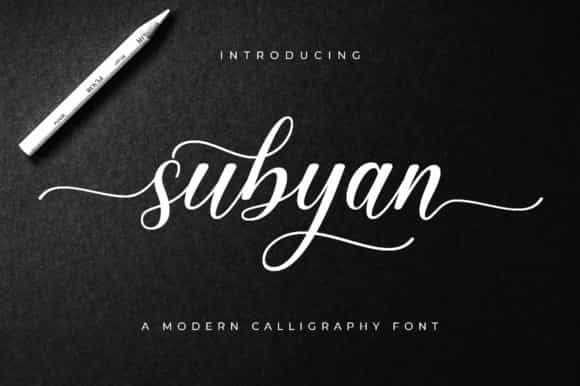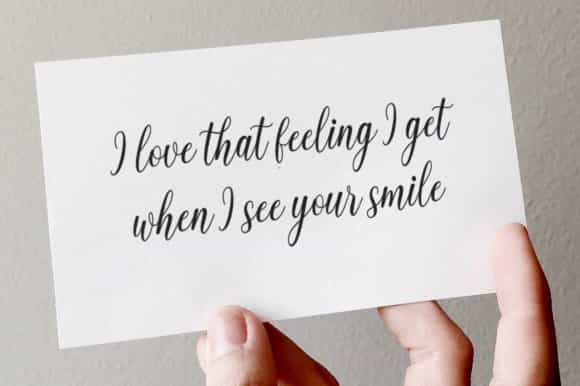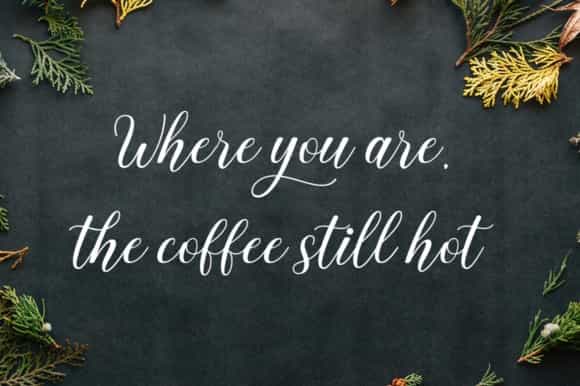
Subyan is a new and modern script font with the handmade calligraphy style, decorative characters. It looks so great on invitation like greeting cards, branding materials, business cards, quotes posters etc!!